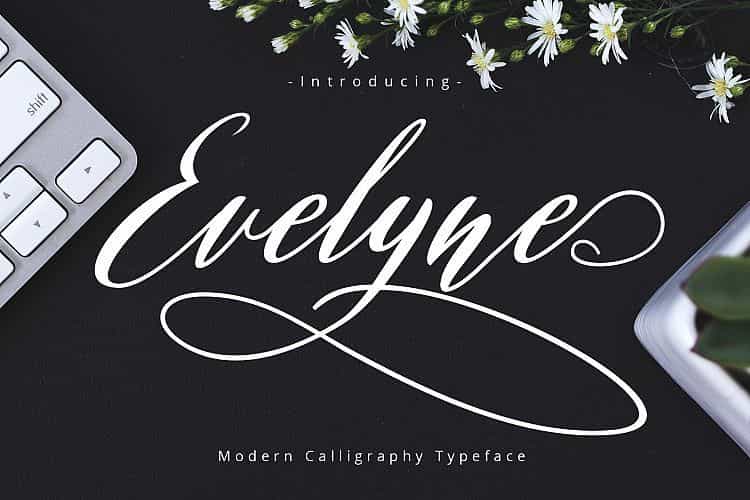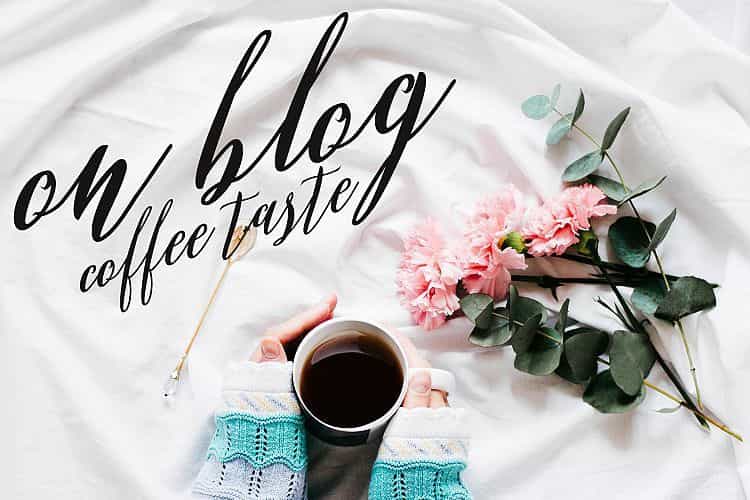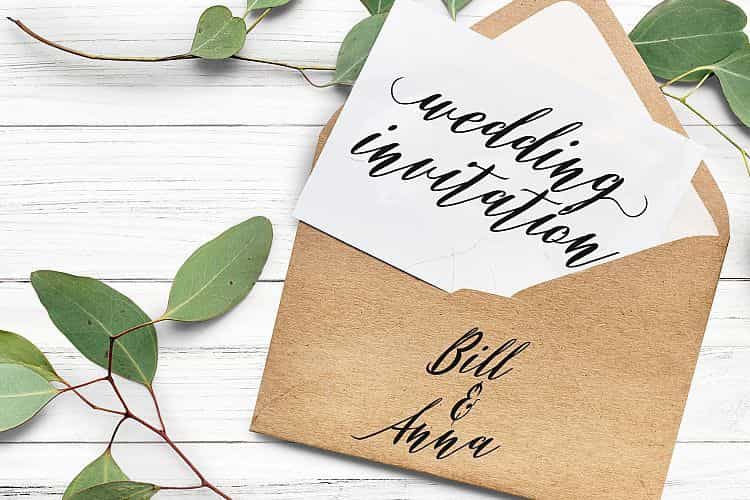
Discover Evelyne Script Font, part of the Calligraphy collection—a versatile and unique font perfect for adding a personal touch to your projects. Download it for free and enjoy crafting designs with style, from invitations to social media posts. This font is available exclusively for personal use, giving you the freedom to create without limits. Unlock your creativity with Evelyne Script Font today!
Introducing Evelyne Font! The calligraphy style and the combination with handwriting style were the main inspirations for this. It is created and distributed by Analogous. Evelyne Script Font, looks like the hand-written modern characters.